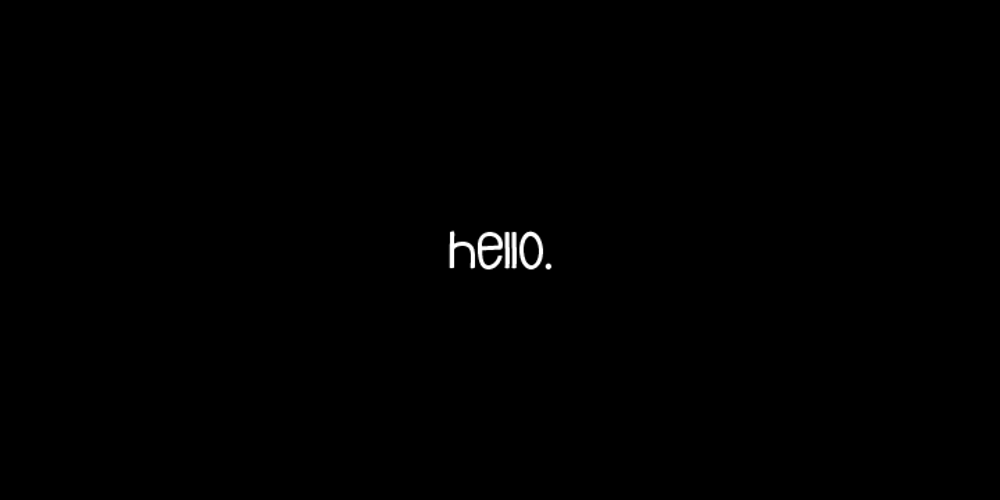
Emmy
Emmy font
Emmy Font Family was designed by Emily Conners and published by Emily Lime. Emmy contains 9 styles and family package options. Emmy is the second family from this up and coming foundry. A versatile font, Emmy has many different styles to suit your needs. Easy to read and fun to use…it’s perfect for a children’s book, logo or other cool design project!